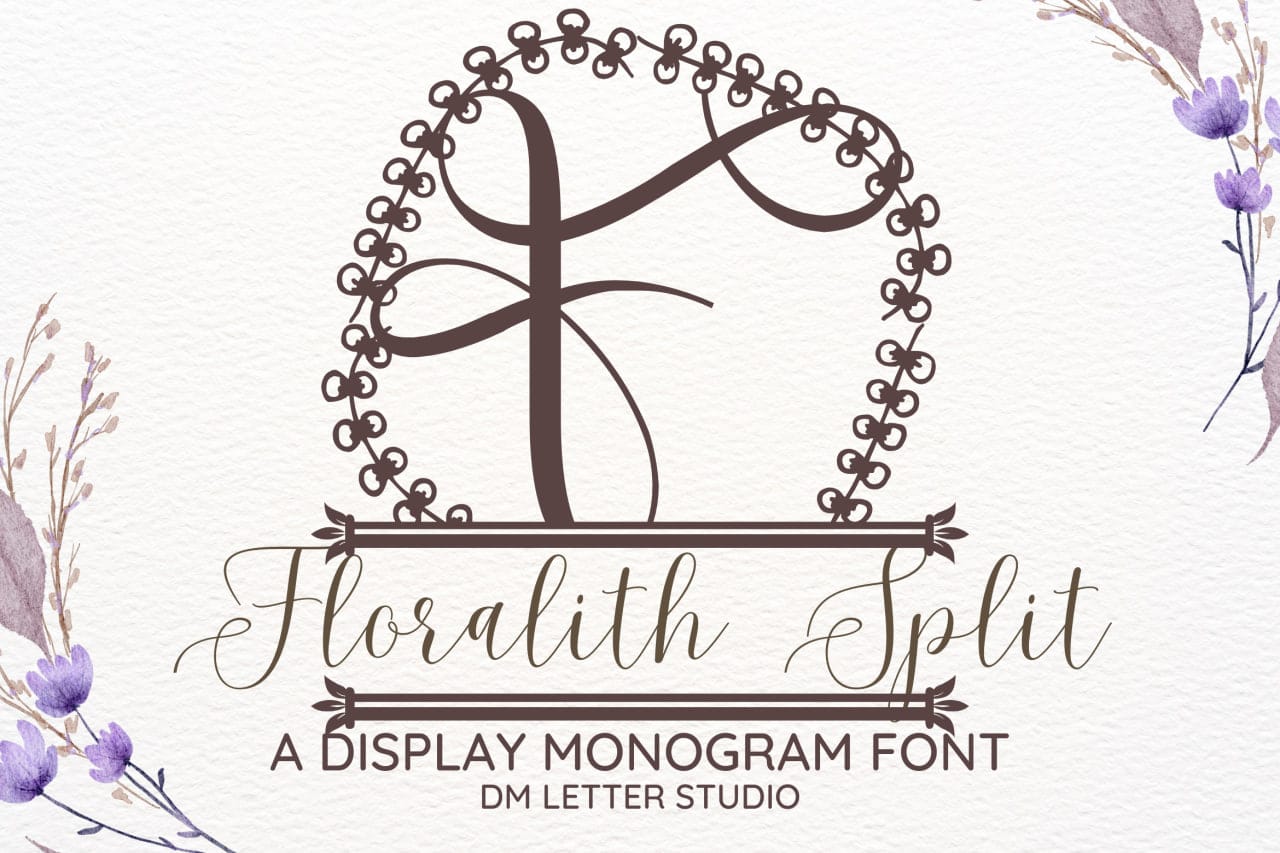
Meet Floralith Split, the Split Monogram Font
Floralith Split Monogram turns simple initials into refined floral crests with a clean center split for names or dates. The letterforms feel elegant and balanced, inspired by classic botanicals rather than heavy ornament. Because counters remain open, small tags print crisp while larger marks look graceful and premium. Use it for wedding suites, boutique logos, stationery, keepsake gifts, and luxury packaging. As a result, your designs feel romantic, personal, and beautifully polished.
Fast layouts with the Floralith Split Monogram Font
Start with a bold split initial and center it as a seal. After that, add a surname, brand name, or date across the split using a separate supporting font if needed. Because Floralith Split holds shape at small sizes, labels, stickers, cards, and tags stay sharp. In addition, it pairs beautifully with wreath frames, oval borders, thin dividers, and subtle floral accents, so full sets come together quickly. Finally, save palette pairs like blush & ivory, sage & cream, champagne & charcoal, or navy & pearl to reuse across product lines.
Creative uses and quick wins
Wedding initials with names or dates across the split
Logo seals, boutique badges, and brand marks
Gift tags, stickers, and keepsake box details
Packaging labels for candles, perfume, soap, and gifts
Design tips for Floralith Split Monogram Font
Keep the center text short so the initial remains the hero. Also, give the crest breathing room so the floral details stay readable at small sizes. For a premium finish, try foil stamping, embossing, or letterpress on textured stock. Finally, export at 300 DPI for print and at 2× size for web so edges stay smooth everywhere.